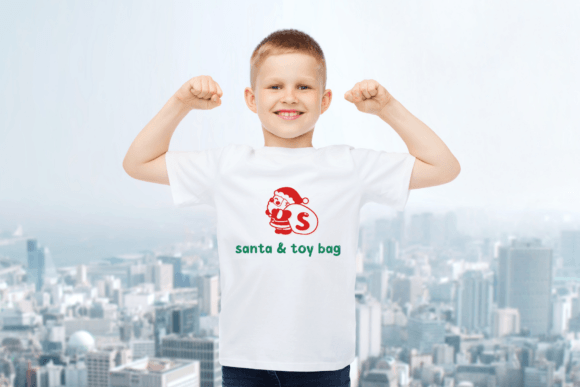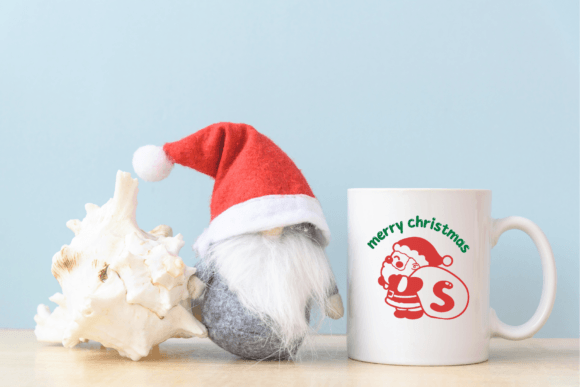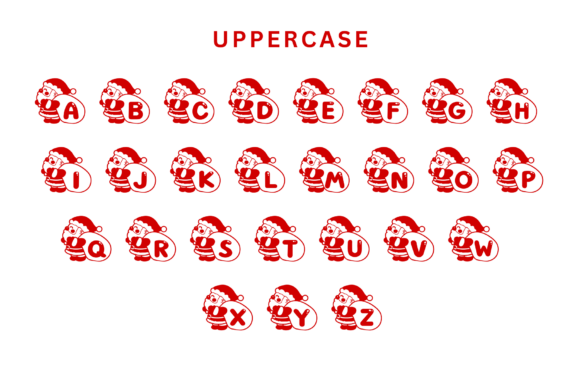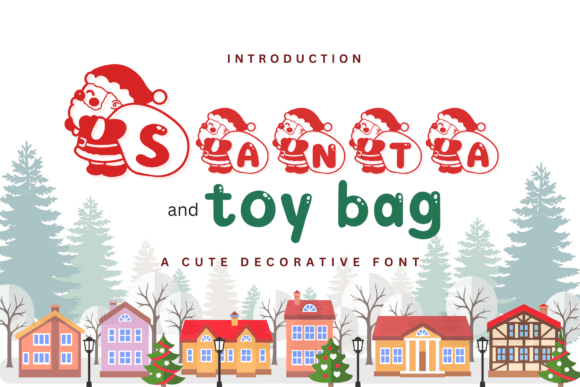
Introduction to Santa and Toy Bag Font
Santa And Toy Bag is a decorative font.
You can use it for taking notes, writing a diary, or making greeting cards However, you can still use it for other designs, such as banners, content, mugs, cards, shirts, stationery, social media posts, and more.